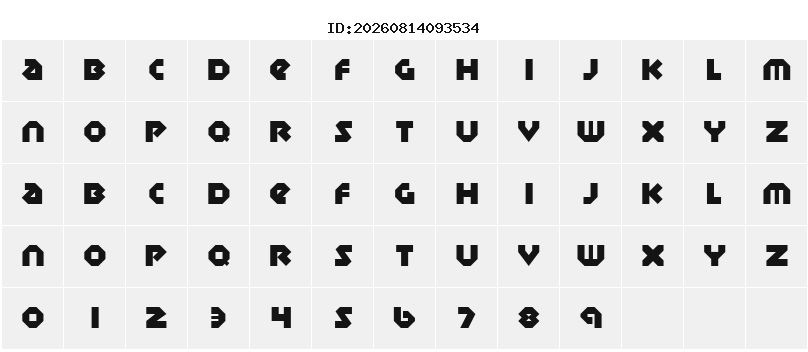
• Font Name: Sudbury Basin
• Font ID: Sudbury Basin
• Full Font Name: Sudbury Basin
• PostScript Name: SudburyBasin
• Character Count: 524
About Sudbury Basin.ttf
Sudbury Basin.ttf is a modern, elegant sans-serif font designed for ultimate readability and visual harmony. Perfect for branding, headlines, web design, and print materials.